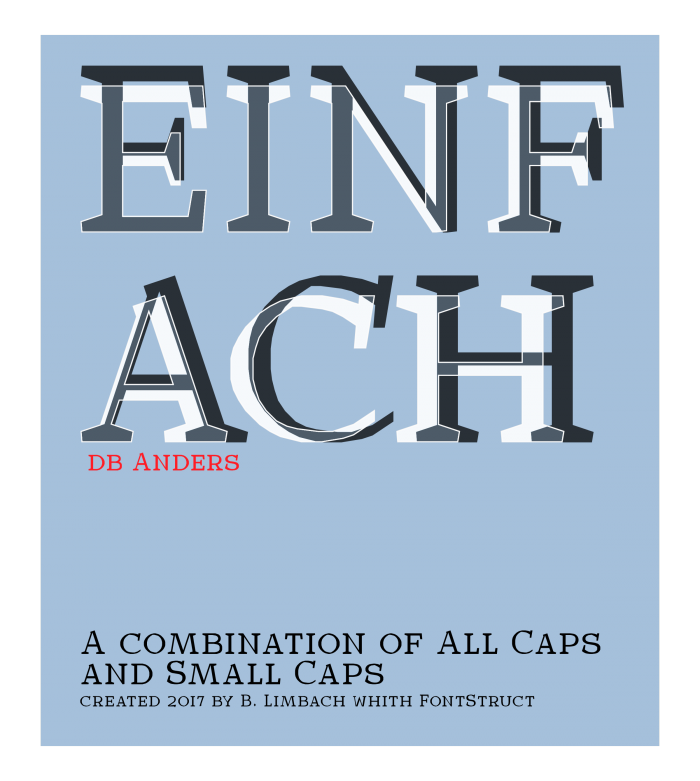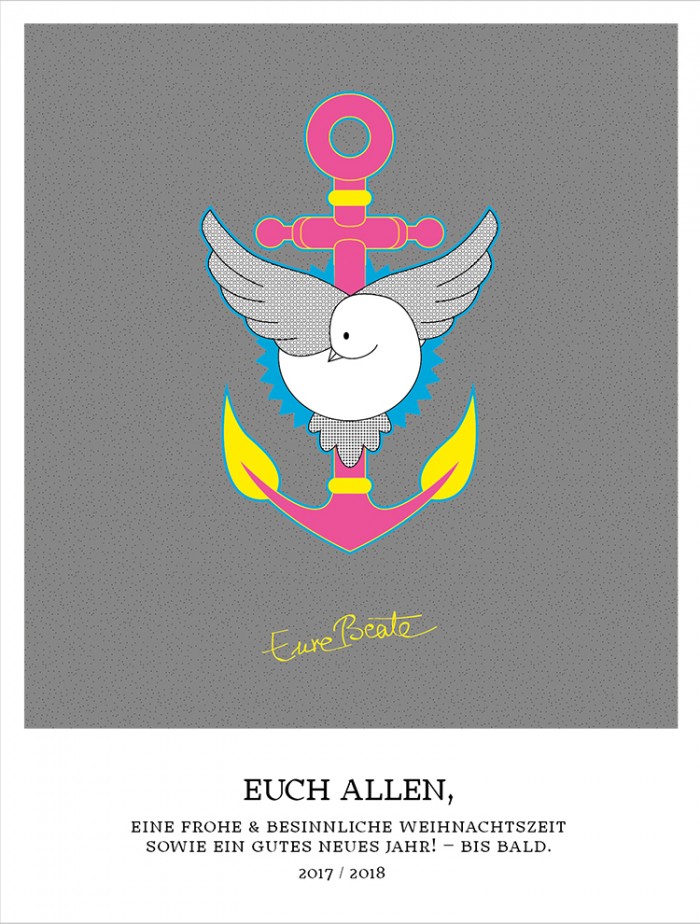
An instant classic :)
Congratulations! FontStruct Staff have deemed your FontStruction worthy of special mention. “db Anders” is now a Top Pick.
I must have been on holiday when this was published. I love the way the curves deconstruct themselves into straight edges as you look closer – one of my favourite FontStruct traits.
I voted for db Anders earlier. This is a stunning work created with love and skill. It could have been a strong entry to SerifComp. I really like the numbers, the way you played with contrast, and the polygonal coarse feel at larger sizes. The text generated is very legible. Great demo. 10/10
The theory of writing in action, cool! Immediately remembered (very popular in Russia) fonts Greta and Skolar, because such fonts with cyrillic are not so much.
I would not have the patience to make such a font. Here you, as I see, did not have the patience to finish 'U', 'N'(wrong contrast, small 'V', 'W','U', 'X', 'Y' have same problem), 'R'(too big loop, precarious two-sided serif),  'W'(can have the same trace from the pen like 'A'), 'Z'(short lower arm). The proportions in the font are good (except for the narrow L and T), but the proportions of the digits are bad. Figures have a retro look, similar 3 and 5 were used on Soviet coins.
I'm sure you know this (and this may be part of your vision or how you want to show the font, but such details make the font farther from the generally accepted neutral and easier to read), but the constant comments from 10/10 forced me to write this. Nevertheless, I consider you one of the best font creators here! And I just adore many of your works, they are all very beautiful, time consuming and thoughtful.
Thank you for your honest words. At some points you have certainly right. But this is only a first draft. You've certainly noticed that I keep revising my fontstructs. That will be the case with db Anders.